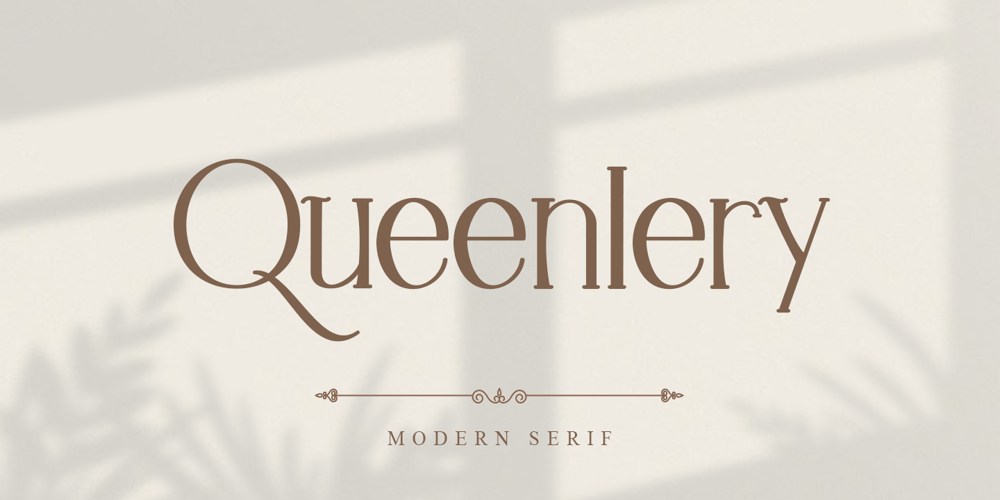
Queenlery Font Family was designed by Thomas Aradea and published by Letterara. Queenlery contains 2 styles and family package options. Queenlery is an elegant, wavy, and delicate sans serif font. It features a classy look that can be used for logos, branding, poster, advertising, promotion, invitations, stationery, wedding designs, social media posts, and much more! Have fun with this cool font and explore its endless variations. This font is PUA encoded which means you can access all of the glyphs.